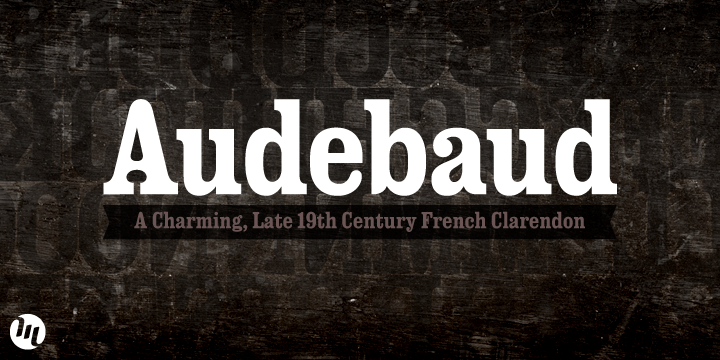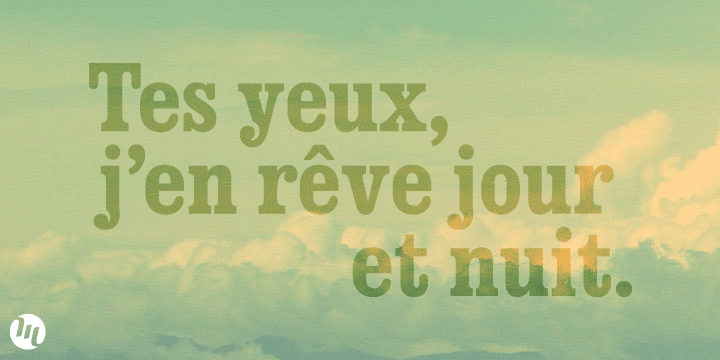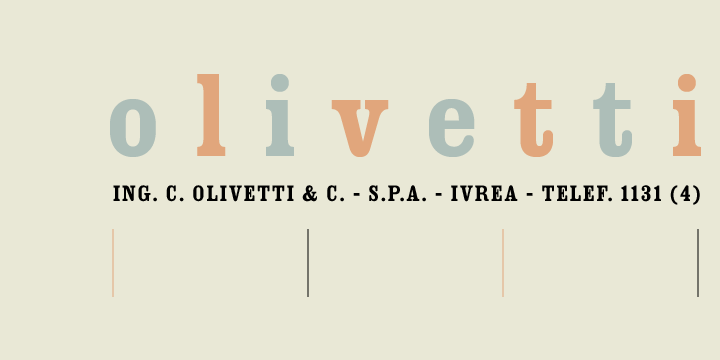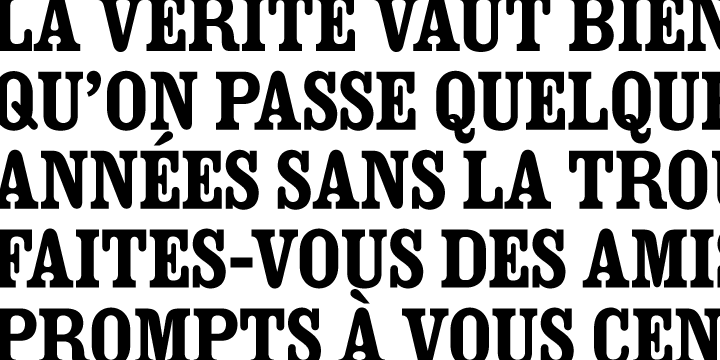
Audebaud is a western and display serif font published by MADType.
This wood type revival is a rare specimen, indeed. Audebaud is a charming and bold 19th Century Clarendon of French lineage. With its rounded terminals, and unique proportions; this font will instill a joie de vivre in any design.
The design was inspired by the work of Constant Audebaud. Audebaud was an engraver of wooden type that was used for posters and the like. His work appeared in the 1880s in the Deux-Sèvres département of France.